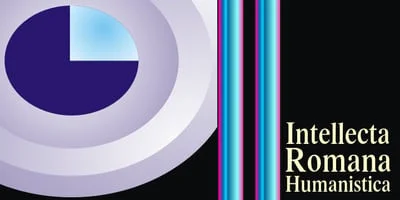
Intellecta Romana Humanistica Font
Intellecta Romana Humanistica Font is ideal for academic institutions, classical literature publications, historical museums, legal documents, prestigious universities, ancient history books, and scholarly research materials. This distinguished typeface embodies the intellectual heritage of Roman civilization and Renaissance humanism, bringing scholarly authority to any educational or cultural design project.
What makes Intellecta Romana Humanistica Font exciting is its authentic recreation of classical Roman lettering traditions combined with Renaissance humanistic principles. The font features precisely crafted letterforms based on ancient Roman inscriptions and early humanist manuscripts, creating an atmosphere of scholarly excellence and historical authenticity. Its authoritative character commands respect while maintaining exceptional readability for extended academic reading.
The Intellecta Romana Humanistica Font family includes multiple weights with historically accurate variations and classical ornamental elements. The character set features authentic Roman numerals, classical ligatures, scholarly symbols, and academic abbreviations that enhance the font's educational appeal. Advanced OpenType features include historical alternates, contextual substitutions, and multilingual support for international academic and cultural institutions.
Whether you're designing academic publications, creating cultural heritage materials, or developing educational brand identities, Intellecta Romana Humanistica Font provides unmatched scholarly credibility and versatility. This prestigious typeface transforms ordinary text into authoritative intellectual experiences that inspire learning and respect while establishing distinguished recognition in competitive academic and cultural marketplaces.